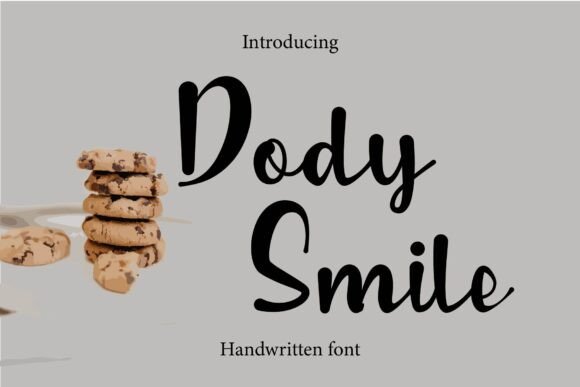
Dody Smile Font: Elevate Your Design with a Touch of Elegance and Friendliness
In the world of typography, fonts play a crucial role in conveying the tone and personality of a brand or design. Among the myriad of fonts available, the Dody Smile font stands out for its unique blend of casual elegance and natural, flowing style. This handwritten script font has gained popularity for its ability to add a friendly and approachable touch to various design projects. In this article, we’ll delve into the characteristics, uses, and benefits of the Dody Smile font, exploring how it can elevate your branding, marketing materials, and creative projects.
The Characteristics of Dody Smile Font
The Dody Smile font is distinguished by its smooth and slightly rounded strokes, which contribute to its friendly and inviting appearance. This handwritten script combines the elegance of traditional calligraphy with the casualness of modern handwriting, making it versatile for a wide range of applications. The font’s balanced weight and organic letterforms ensure that it maintains a modern yet personal touch, perfect for designs that require a sophisticated yet approachable feel.
Versatility in Design Applications
One of the key advantages of the Dody Smile font is its versatility. Its design makes it suitable for various projects, including:
- Branding: Use the Dody Smile font to create a memorable brand identity that stands out for its elegance and friendliness.
- Product Packaging: Add a personal touch to your product packaging, making it more appealing and distinctive on store shelves.
- Social Media Posts: Enhance your social media presence with eye-catching posts that reflect a modern yet personal aesthetic.
- Invitation Designs: Create beautiful and inviting designs for weddings, parties, and other special occasions.
Ideal for Lifestyle, Bakery, Fashion, and Inspirational Quotes
The Dody Smile font is particularly well-suited for designs related to lifestyle, bakery, fashion, and inspirational quotes. Its elegant yet casual appearance makes it perfect for:
- Lifestyle Brands: Convey a sense of modern living with a personal touch, ideal for brands focusing on wellness, travel, and home decor.
- Bakery and Food-related Businesses: Add a warm and inviting feel to your brand, perfect for bakeries, cafes, and food bloggers.
- Fashion Brands: Bring a touch of sophistication and elegance to your fashion brand, suitable for clothing lines, accessories, and beauty products.
- Inspirational Quotes and Blogs: Share your messages with a wider audience through beautifully designed quotes and blog posts that resonate with readers.
Readability and Versatility in Media
The Dody Smile font is designed to be highly readable, making it effective for use in both digital and print media. Its clear and flowing script ensures that your message is conveyed effectively, whether it’s used for:
- Digital Media: Enhance your website, blog, or social media posts with a font that looks great on screens.
- Print Media: Create stunning brochures, flyers, posters, and business cards that leave a lasting impression.
Benefits of Using Dody Smile Font
Choosing the Dody Smile font for your design projects comes with several benefits:
- Unique Aesthetic: Stand out from the crowd with a font that offers a unique blend of elegance and friendliness.
- Versatility: Use it across various design projects, from digital media to print materials.
- Readability: Ensure your message is conveyed clearly and effectively, thanks to its highly readable design.
- Time-saving: With a font that is easy to work with, you can save time on design and focus on other creative aspects of your project.
How to Use Dody Smile Font Effectively
To maximize the impact of the Dody Smile font, consider the following tips:
- Pair with Complementary Fonts: Use the Dody Smile font in combination with simpler fonts to create visual hierarchy and contrast.
- Adjust Size and Weight: Experiment with different sizes and weights to add emphasis and create a dynamic layout.
- Consider Color: Choose colors that complement the friendly and elegant feel of the font, enhancing its overall impact.
The Dody Smile font offers a unique opportunity to elevate your designs with a touch of elegance and friendliness. Its versatile and readable design makes it suitable for a wide range of applications, from branding and product packaging to social media posts and inspirational quotes. By incorporating the Dody Smile font into your design projects, you can create visually appealing and effective communications that resonate with your audience. Whether you’re a designer, marketer, or simply someone looking to add a personal touch to your creations, the Dody Smile font is an excellent choice.
Embrace the elegance and friendliness of the Dody Smile font in your next design project and discover how it can help you connect with your audience in a meaningful way.